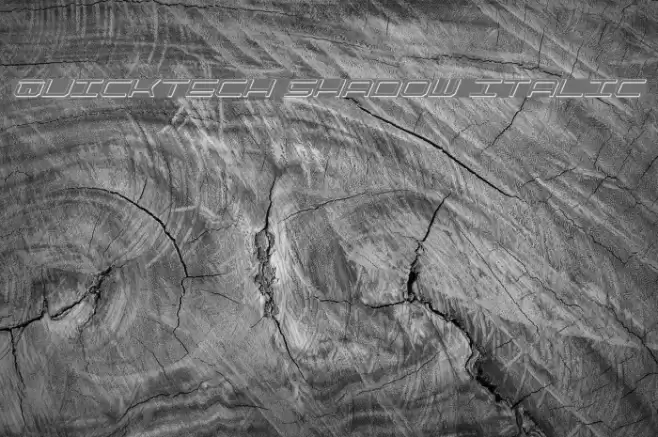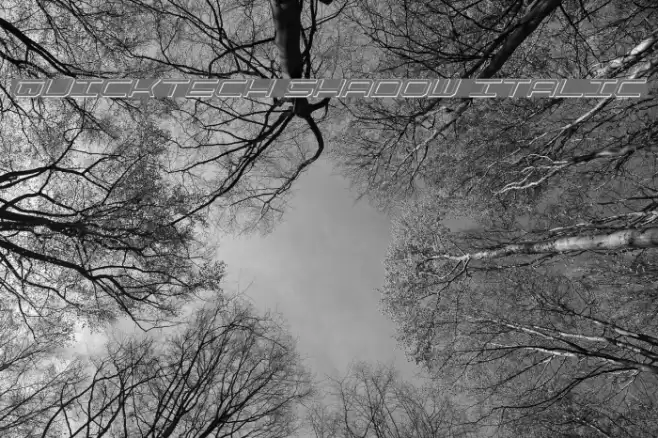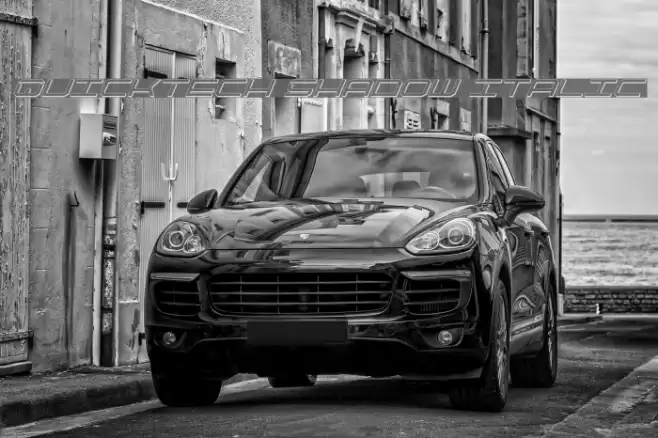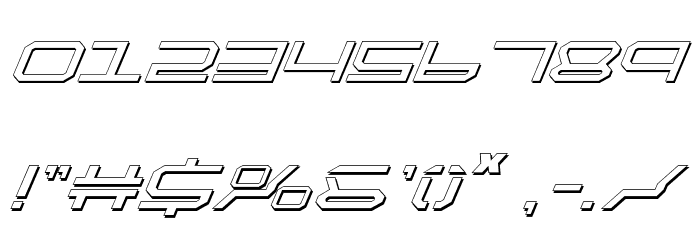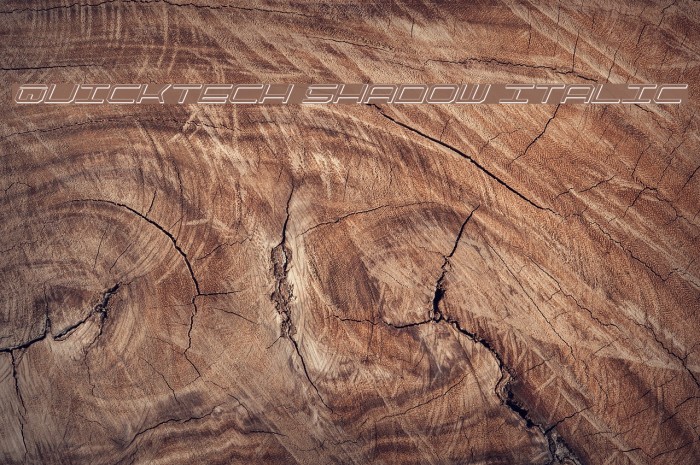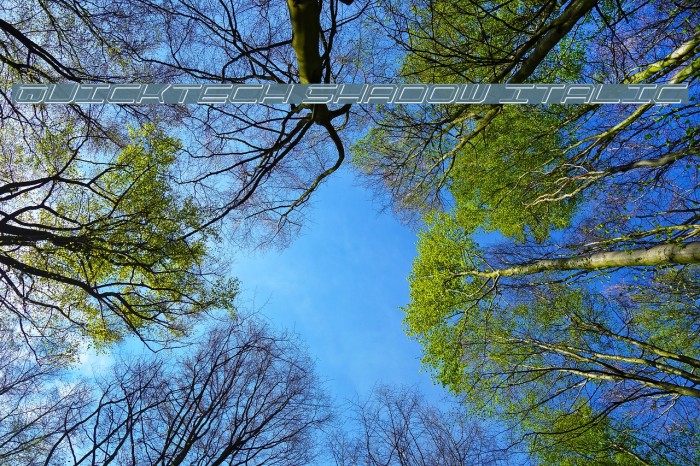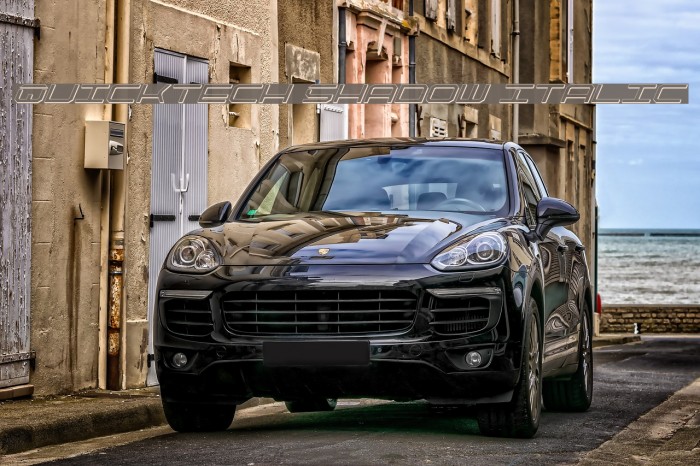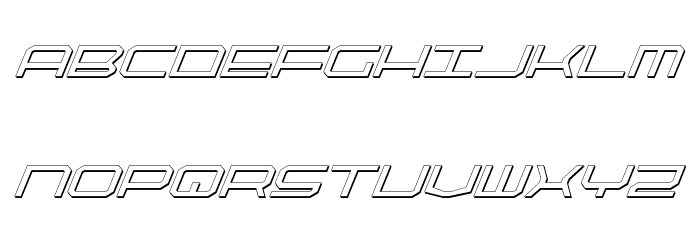
QuickTech Shadow Italic Font
QuickTech Shadow Italic Description
This font features a futuristic and technological design with a distinct shadow effect that gives it a three-dimensional appearance. The characters are outlined, creating a hollow effect that enhances its modern and sleek look. The italic slant adds a dynamic and forward-moving feel, making it suitable for projects that require a sense of speed and innovation. The uppercase and lowercase letters maintain a consistent style, with angular and geometric shapes that emphasize its tech-inspired aesthetic. The numerals and special characters are designed to match the overall theme, ensuring uniformity across all text elements.
A futuristic, shadowed, italic font with a tech-inspired design from Images & Symbols fonts.
- Proposed Projects: Ideal for technology branding, sci-fi themed projects, video game titles, and innovative product packaging.